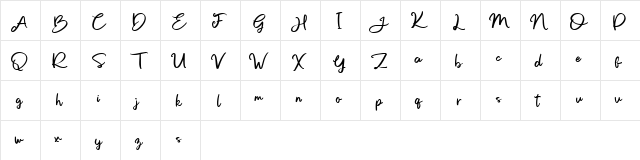
Sweet Buttermilk Free Script Regular
Design Context for Sweet Buttermilk Free Script Typeface
Sweet Buttermilk Free Script flows with the natural rhythm of handwritten lettering, making it ideal for designs that call for warmth and personal expression.
Font Pairing: Combine Sweet Buttermilk Free Script with a simple geometric sans for maximum contrast — the tension between flowing curves and clean structure is a classic typographic pairing.
Pro Tip: Pair Sweet Buttermilk Free Script with a clean sans-serif for supporting text. The contrast between fluid script and geometric structure creates an elegant typographic hierarchy.